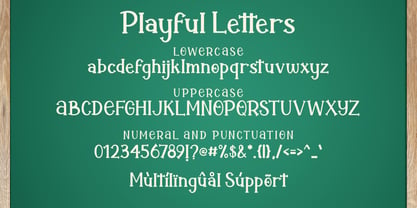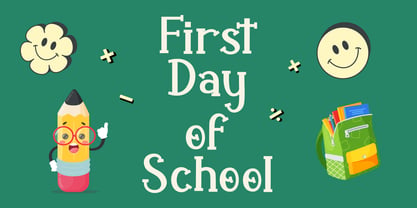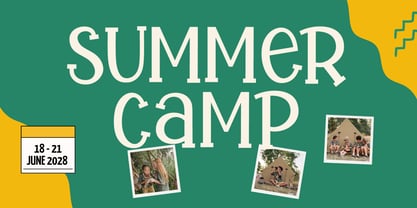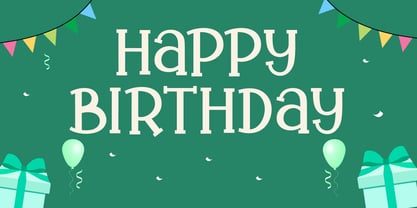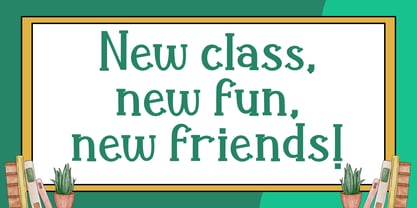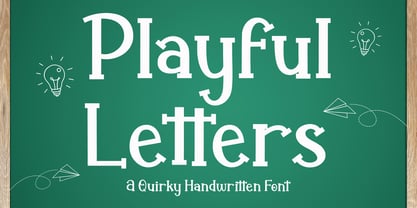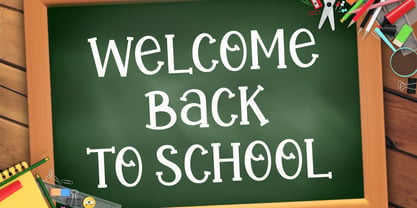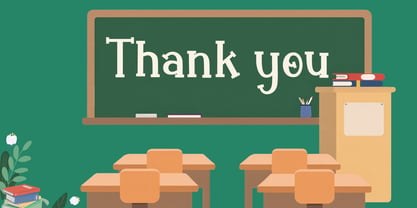
Playful Letters
The Playful Letters Font Family was designed by Agung Eko Nugroho and published by AEN Creative Studio. Playful Letters contains 2 styles and family package options. More about this family
Playful Letters is a contemporary serif typeface that blends classic structure with a cheerful and expressive character. Featuring subtle irregularities and soft details, it brings a friendly and approachable tone while maintaining excellent readability. Designed for display use, Playful Letters works beautifully for headlines, titles, and creative layouts. Its playful character makes it especially suitable for children’s designs, educational materials, branding, and back-to-school themes. A fresh take on classic serif, Playful Letters adds warmth, charm, and a lively touch to any project.